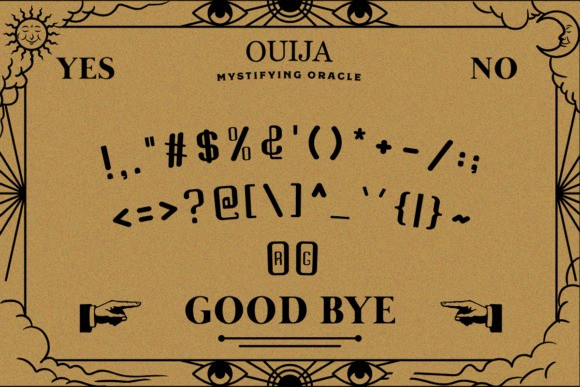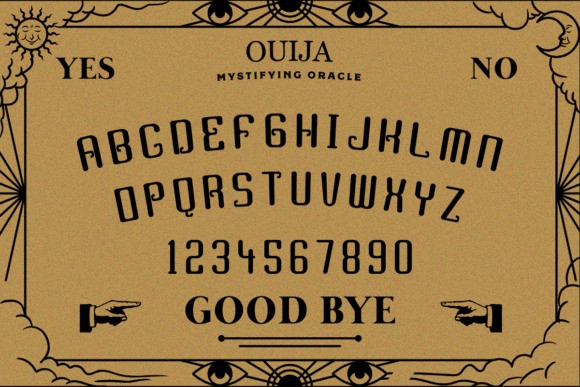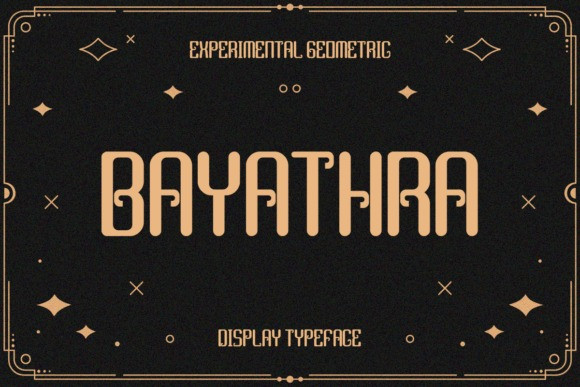
Bayathra Font
Bayathra Font is a bold and unconventional display font that blends geometric precision with abstract, experimental flair. Each letterform is crafted with a strong vertical structure and unexpected curves, giving it a futuristic yet retro-inspired vibe. Perfect for posters, branding, editorial layouts, and any design project that demands attention and uniqueness.
Bayathra channels planchette-board mystique with tubular monoline strokes, soft-cornered rectangles, and tall, upright proportions. Rounded terminals and archlike shoulders create a mellow rhythm, while clipped inner joints and squared counters give letters a ritual, deco edge. The caps-forward set reads clean at size yet unmistakably uncanny. Track it wide for marquee drama or tighten for compact badges; pair with a thin grotesk or a fine serif. Perfect for posters, labels, menus, tarot/occult branding, game titles, and vintage-modern packaging.
Bayathra typeface is ideal for creative professionals who want to break the rules of traditional typography. Whether you’re designing a tech-inspired interface, an avant-garde art zine, or a statement piece, Bayathra delivers both visual impact and modern sophistication.